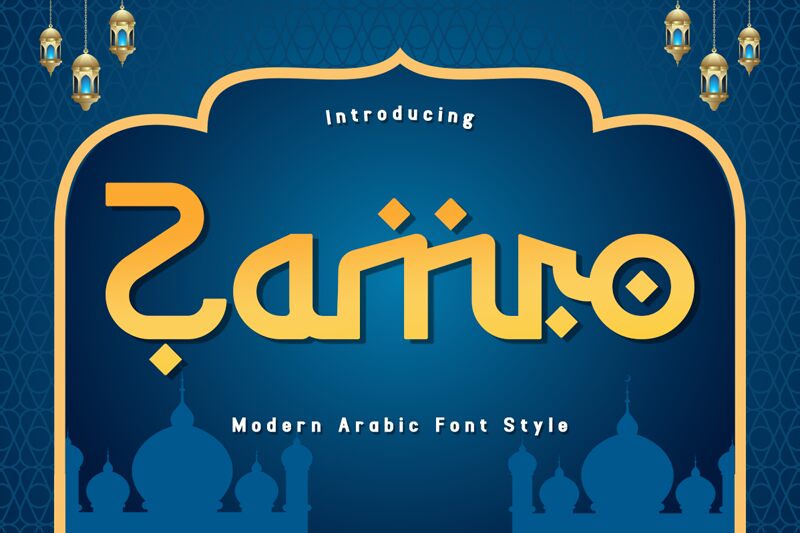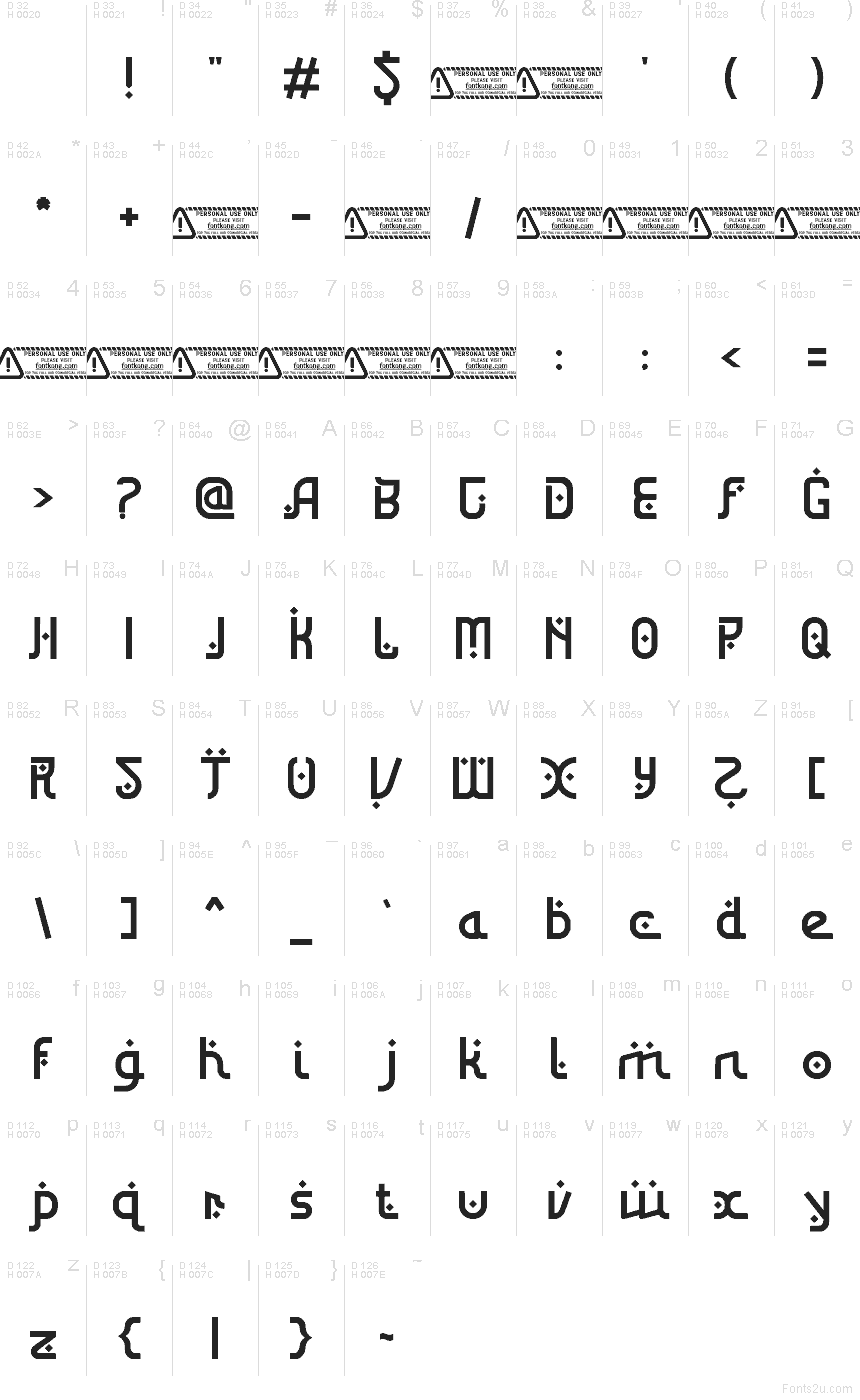
Zamro font by Kong Font is a free foreign faux Arabic typeface that twists Latin letters into sinuous, looping shapes with a bold, inky weight. Wide curves swoop into sharp angles, while diamond dots and circular counters add a geometric sparkle that feels both futuristic and calligraphic. The tight rhythm and chunky strokes give every word a logo-like presence, so even short titles feel like custom lettering.
Using Zamro, you can bring an exotic sci-fi or Middle Eastern–inspired flavor to posters, game titles, film credits, music covers, festival branding, and bold packaging. This free font shines at large sizes, where its interlocking shapes and decorative dots can really breathe. Pair it with a clean, neutral sans-serif for body text to keep layouts readable while Zamro handles the visual drama.